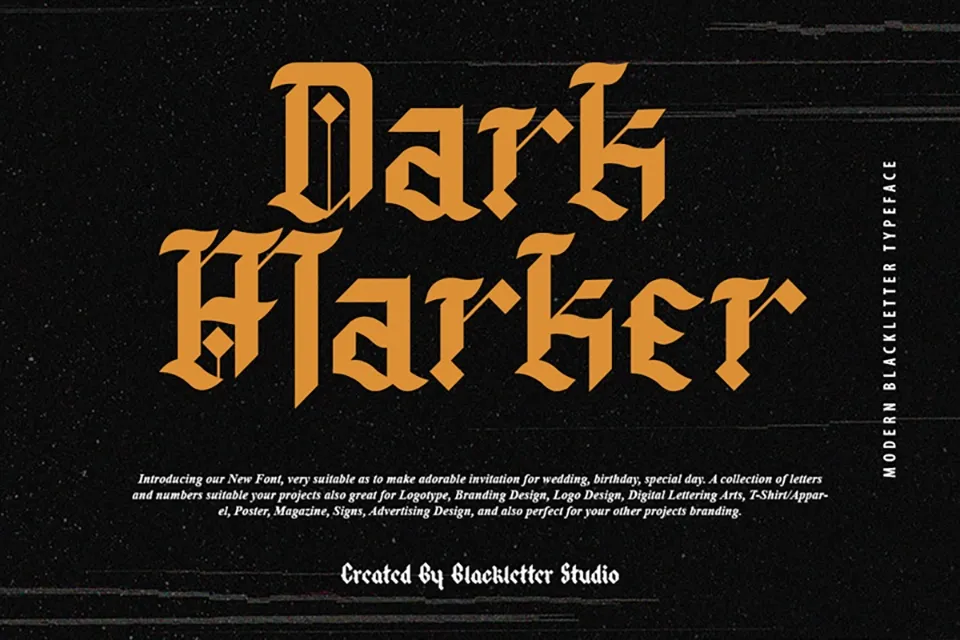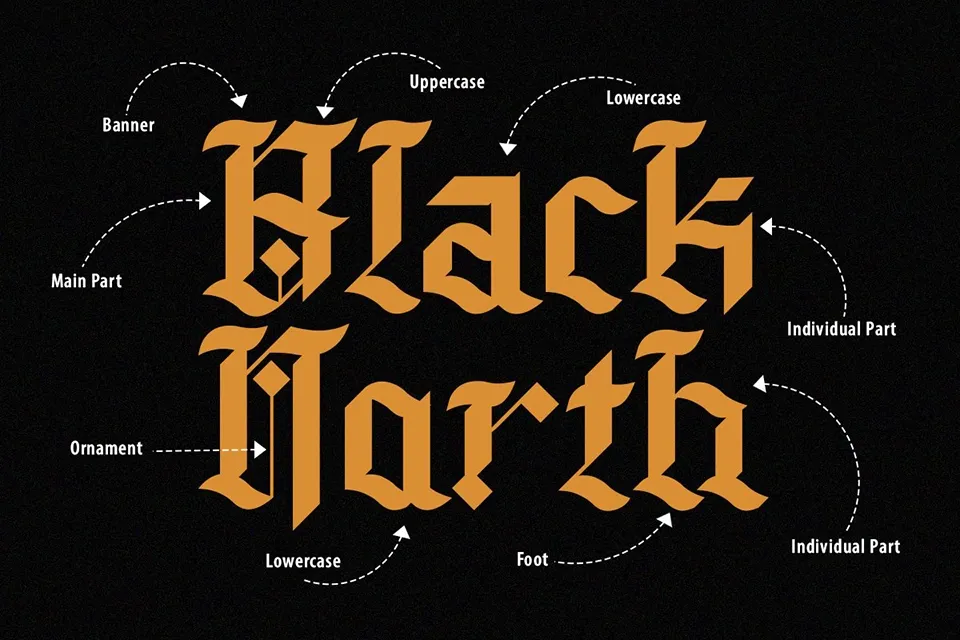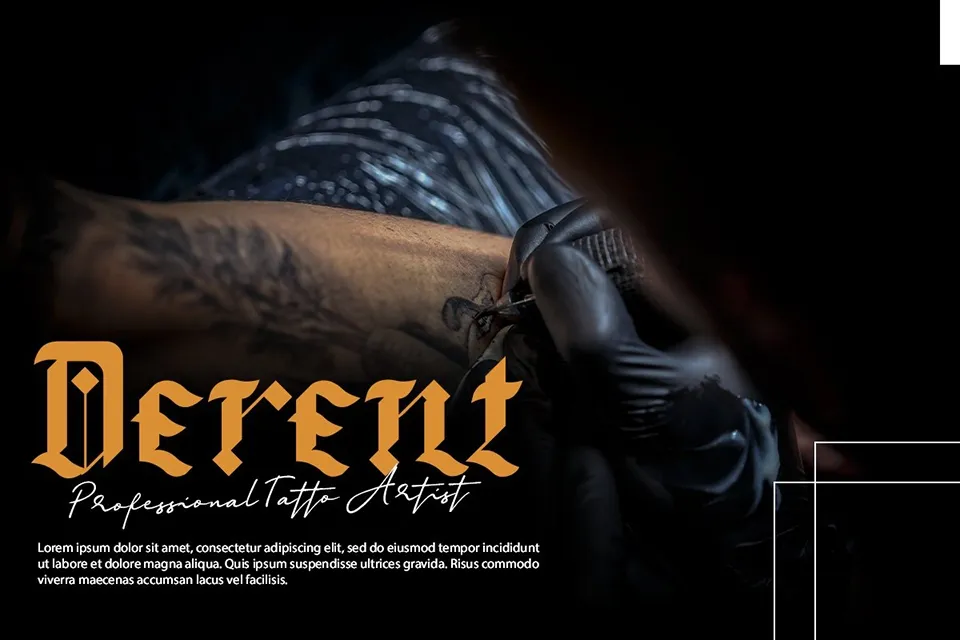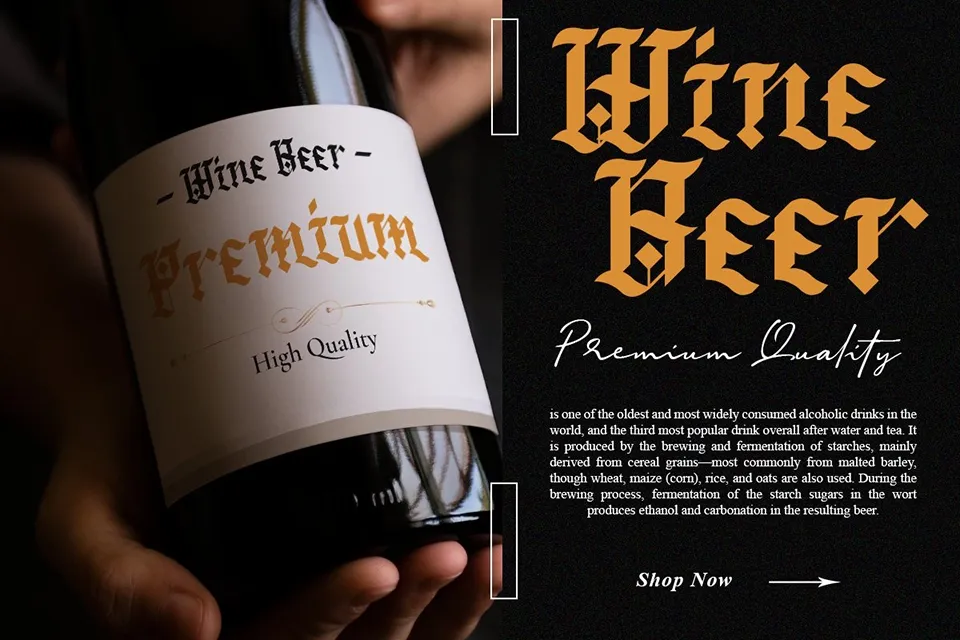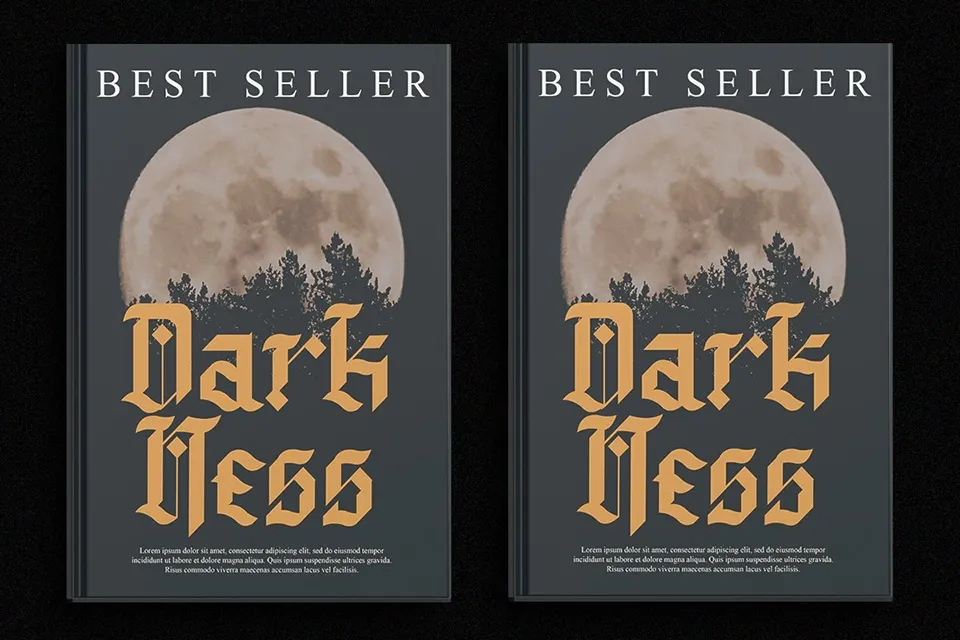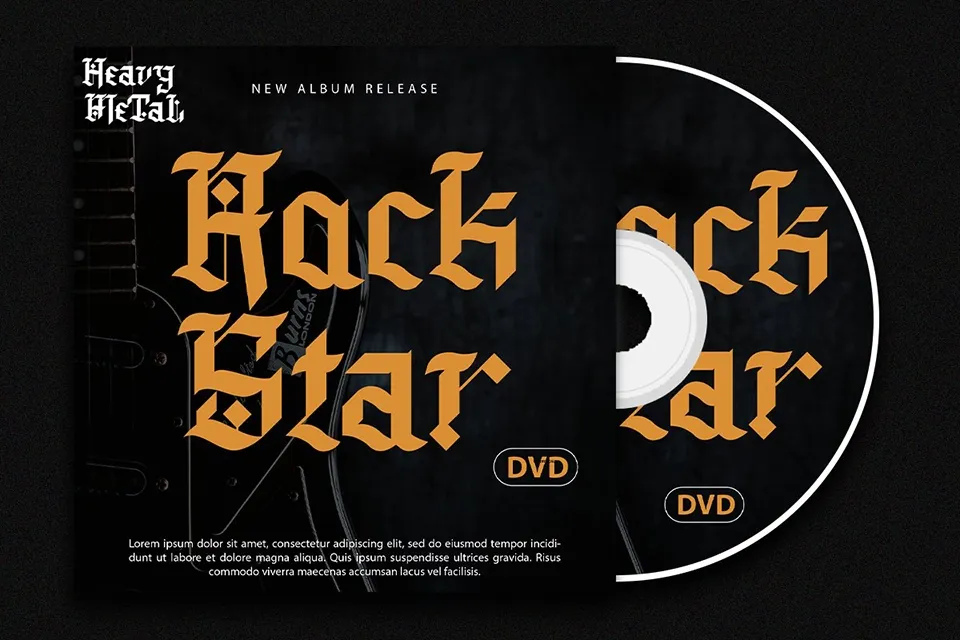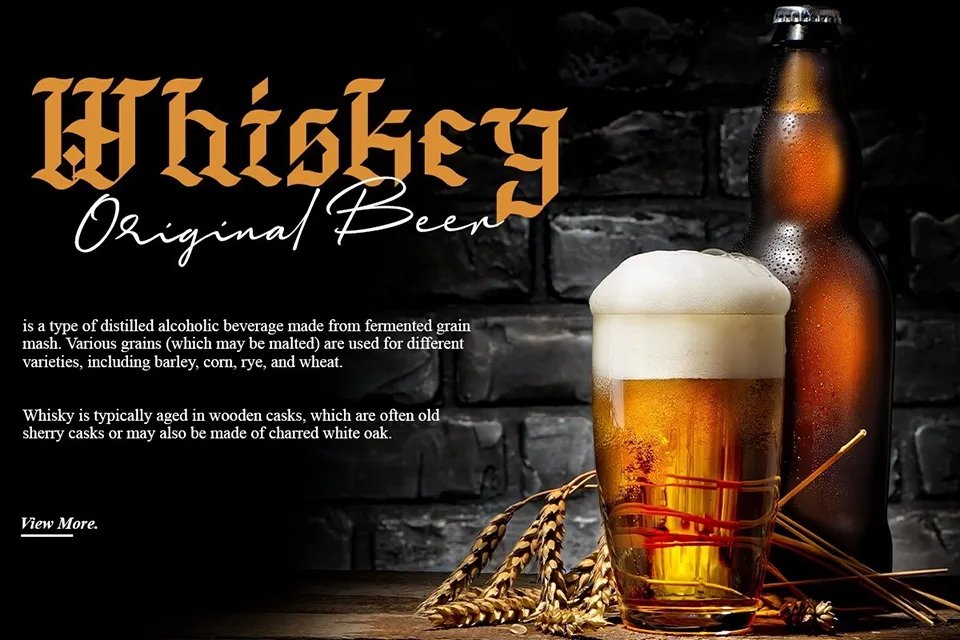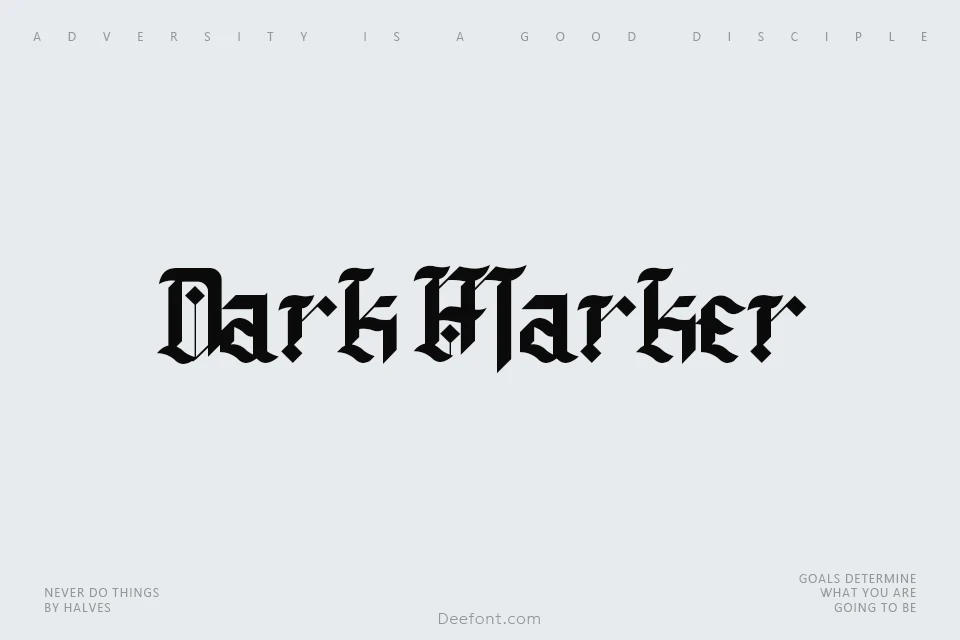
Dark Marker Font
Dark Marker is a distinct and assertive blackletter font. Its original and well balanced letters make this font a masterpiece. Fall in love with its incredibly versatile style and use it to create spectacular designs!